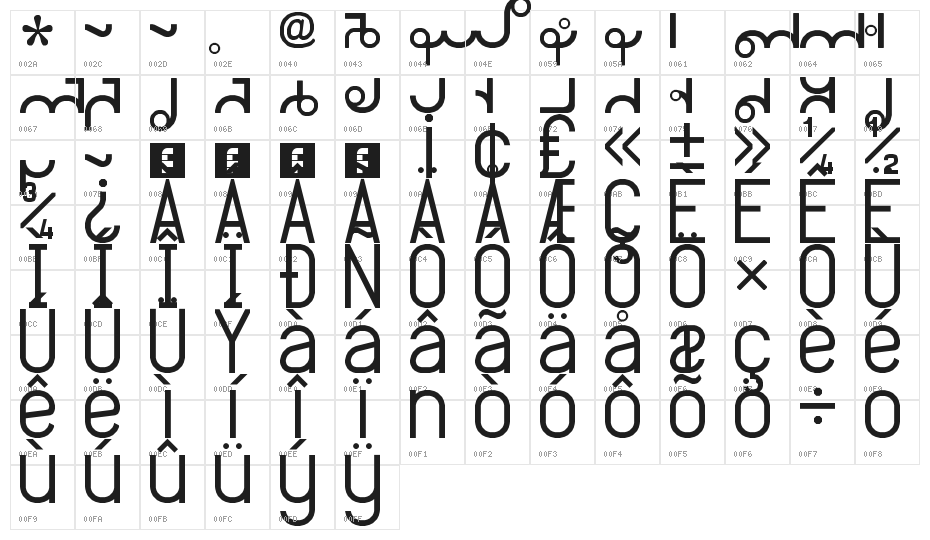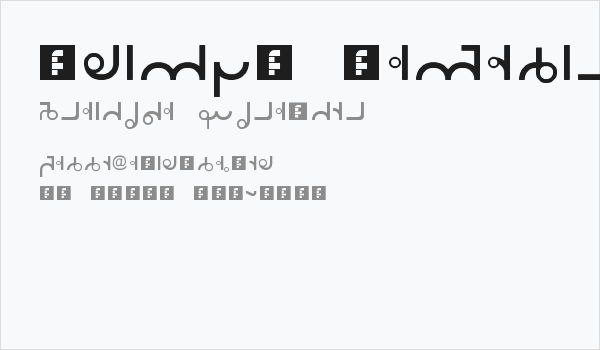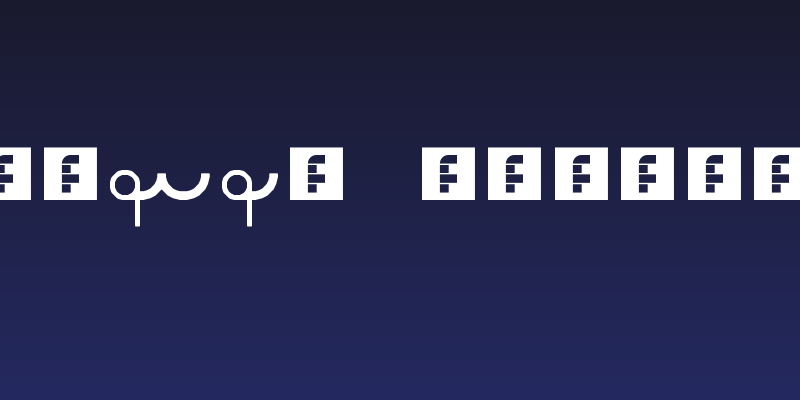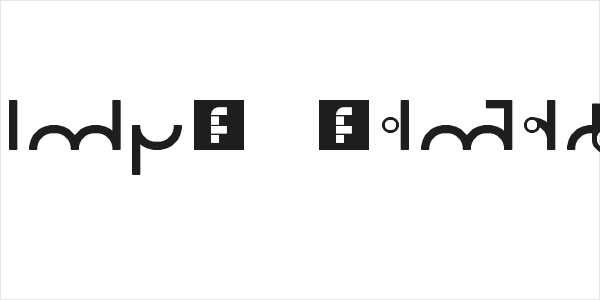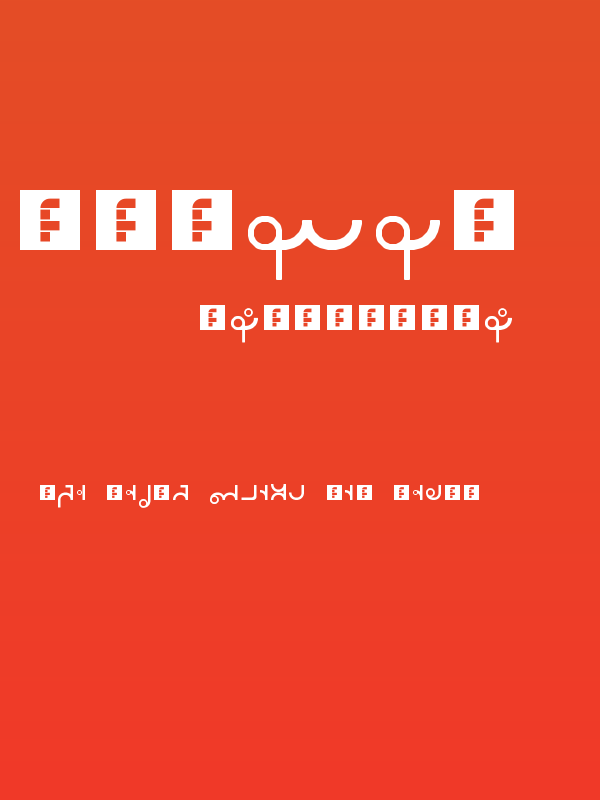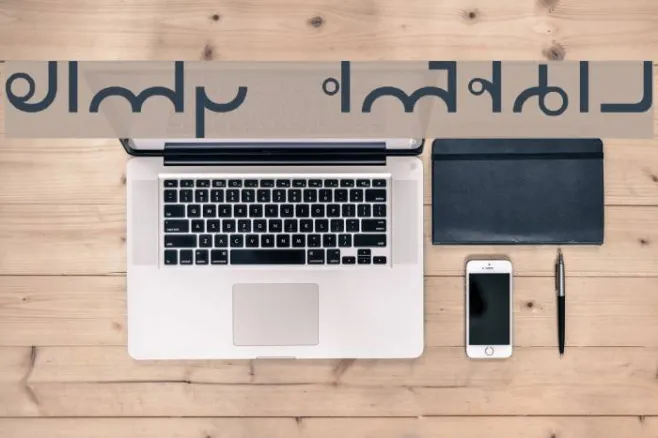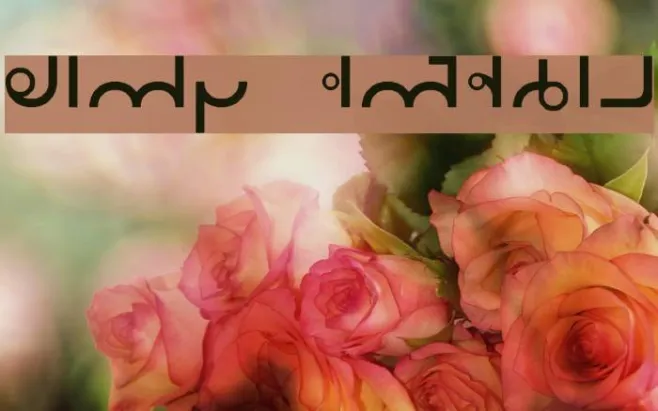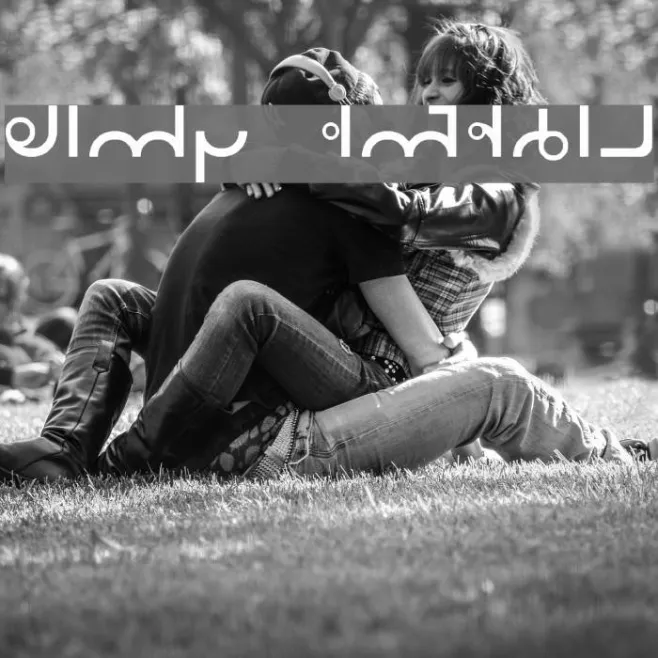
Amadz3 Regular Font
Amadz3 Regular Description
This font features a unique and decorative style with intricate curves and loops, giving it an artistic and playful appearance. The characters are designed with a consistent stroke width, contributing to a harmonious and balanced look. The font includes a full set of uppercase and lowercase letters, numerals, and a selection of special characters. Its distinctive design makes it suitable for creative projects that require a touch of whimsy and individuality.
| Use Case | Logos, Invitations, Creative projects |
| Proposed Projects | Ideal for artistic projects, children's books, creative branding, and playful invitations. |